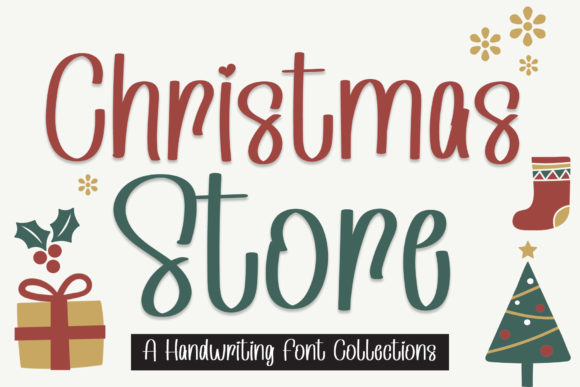
Immerse yourself in the festive charm of Christmas Store, an enchanting script font family that will transform your creative projects into masterpieces. Handcrafted by the talented artists at YanStudio, Christmas Store captures the essence of holiday cheer with its playful characters that dance along the baseline.
With Christmas Store, you have the power to evoke a sense of warmth and nostalgia in your designs. Its elegant curves and playful flourishes add a touch of whimsy and magic, making it perfect for creating greeting cards, invitations, posters, and other seasonal delights.
Step into a world where creativity knows no bounds as you explore the versatility of Christmas Store. Its charming personality shines through in both formal and informal settings, making it a perfect choice for school projects, personal branding, and social media posts. Unleash your imagination and let Christmas Store carry your words across the digital landscape with style and grace.
Christmas Store is more than just a font; it's an experience that ignites the senses and sparks the imagination. Its enchanting characters evoke the joy and wonder of the holiday season, creating designs that resonate with your audience on a deeper level.